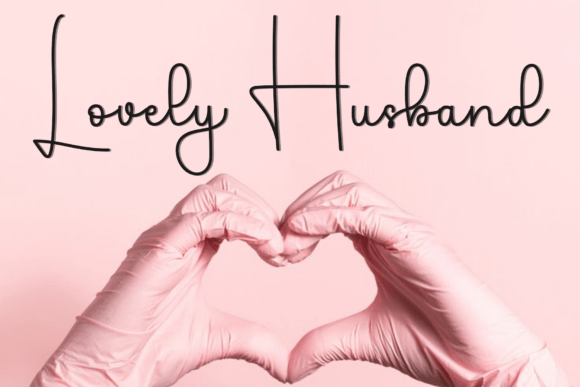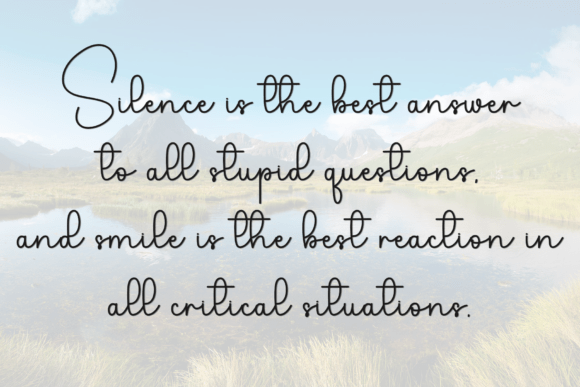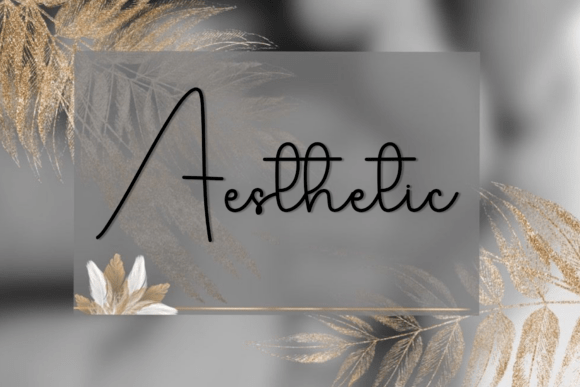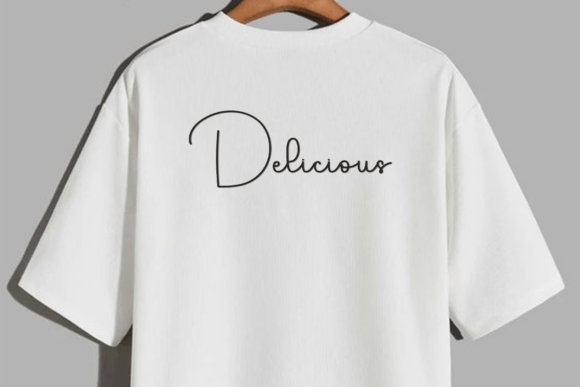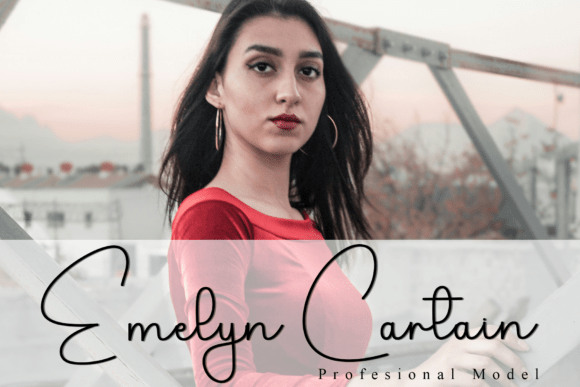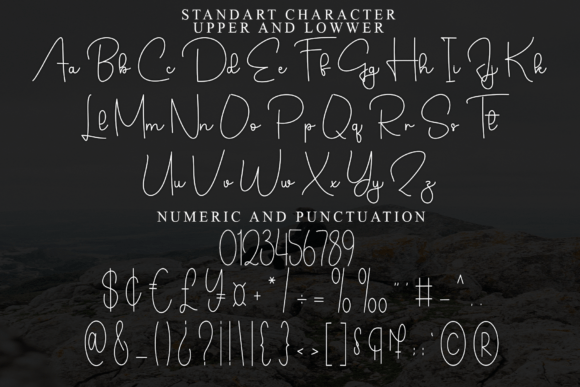
Discover the Unique Charm of Cherry Starbursh Font
Have you ever stumbled upon a font that sparks your creativity and leaves you wanting more? For designers, this is a moment of pure joy. It’s the moment when a well-crafted font can elevate your design project and transport your audience to a new world of imagination. For me, this moment came when I discovered the Cherry Starbursh Font.
This beautiful and eye-catching font is designed with a soft, unique touch that gives it a special character. With its distinctive strokes, it’s perfect for a wide range of design projects, crafts, and other creative works. Whether you’re a seasoned designer or a hobbyist, the Cherry Starbursh Font is a valuable addition to your creative toolkit.
Key Features of Cherry Starburst Font
- Font Family: Cherry Starburst is a unique, hand-drawn font with a whimsical feel, suitable for various design applications.
- Unique Characteristics: Features a distinctive, hand-painted style with subtle texture and imperfections, adding a touch of personality to designs.
- Character Count: Includes a wide range of characters, including uppercase and lowercase letters, numbers, punctuation marks, and special characters.
Cherry Starburst Font Review
Overall, I think the Cherry Starburst font has some great qualities that make it a nice addition to a design project. ✨ The font’s playful and whimsical feel is perfect for creating a fun and youthful vibe. The curves and rounded edges give it a friendly and approachable look that’s sure to engage users.
Here are some specific things that work well:
- The font’s consistency in terms of line width and spacing makes it easy to read and use.
- The subtle flair at the end of the letters adds a touch of personality and whimsy.
- The font is highly legible, even at small font sizes.
- ⚠️ The font may not be suitable for formal or professional designs, as it can come across as too playful or childish.
- ⚠️ Some users may find the font’s rounded edges and curves to be a bit too “cute” or overwhelming.
- ⚠️ The font may not be available in as many weights or styles as other popular fonts.
Overall, I think the Cherry Starburst font is a great choice for designers looking to add a touch of playfulness and whimsy to their designs. While it may have some limitations, it’s a fun and engaging font that’s sure to capture users’ attention.
The Cherry Starburst font is ideal for use in:
1. Food and beverage branding.
2. Summer-themed designs.
3. Whimsical and playful designs.
4. Social media graphics.
Tips for Getting the Most Out of Cherry Starburst Font
1. Use the font in combination with bold and italic styles to add emphasis.
2. Experiment with different font sizes and colors to create visual interest.
3. Pair the font with other playful and whimsical elements to create a cohesive design.